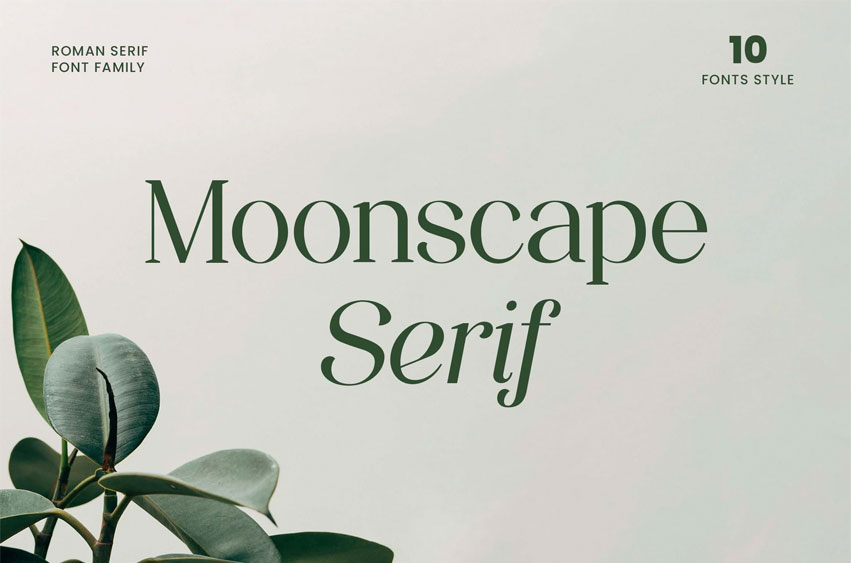
Moonscape Serif Font
Moonscape Serif Font Family that feels beautiful, classy, elegant, and modern. This font is perfectly suited for a wide variety of projects, such as signatures, stationery, logos, weddings, typography quotes, magazine or book covers, website headers, branding, packaging design, and more. Also, fashion-related branding or editorial design displays both masculine and feminine qualities.
Moonscape Serif Font Family is a balanced, smooth, elegant, and stylish serif font. This celestial-inspired typeface has a beautiful character that captures the mystique and tranquility of moonlit nights. It fits perfectly with invitation card designs, company logos, movie titles, movie names, business cards, book titles, brand names, and various other designs.
Moonscape Serif Font Family is a subtle serif font that exudes sophistication and celestial elegance. Its stylish alternations and ligatures make this font the perfect partner for any project that seeks to evoke a sense of mystery, romance, and ethereal beauty.